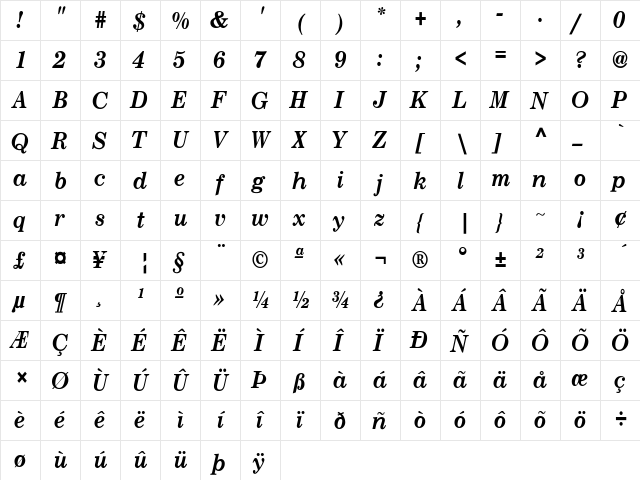
NewCenturySchlbkCnd-Bold-Italic Regular
Design Context for NewCenturySchlbkCnd-Bold-Italic Typeface
NewCenturySchlbkCnd-Bold-Italic is a composed and adaptable typeface that performs quietly and consistently across a wide range of design contexts. The dynamic lean of this cut emphasises speed and emphasis in any layout. The heavy weight commands attention and anchors typographic hierarchies.
Pro Tip: Use NewCenturySchlbkCnd-Bold-Italic for emphasis, pull quotes, and subheadings where its slanted energy can add rhythm to the layout.